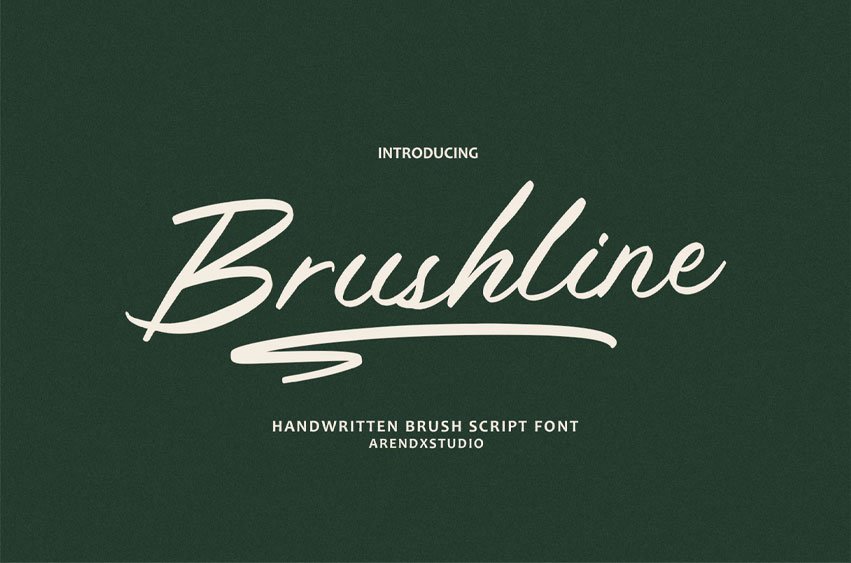
Brushline Script Font is a bold handwritten brush script font that brings dynamic energy to any design. Ideal for logos, packaging, branding, and social media graphics, this font delivers personality and style with every stroke.
Features: Uppercase and lowercase characters
Numerals and Punctuation (OpenType Standard)
Accents (Supports Multilingual Characters)